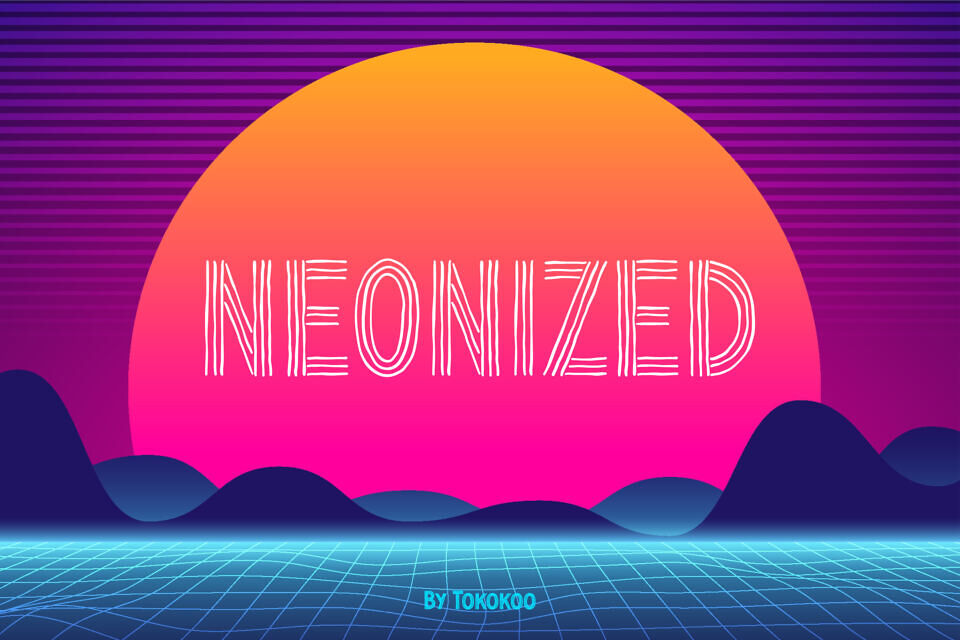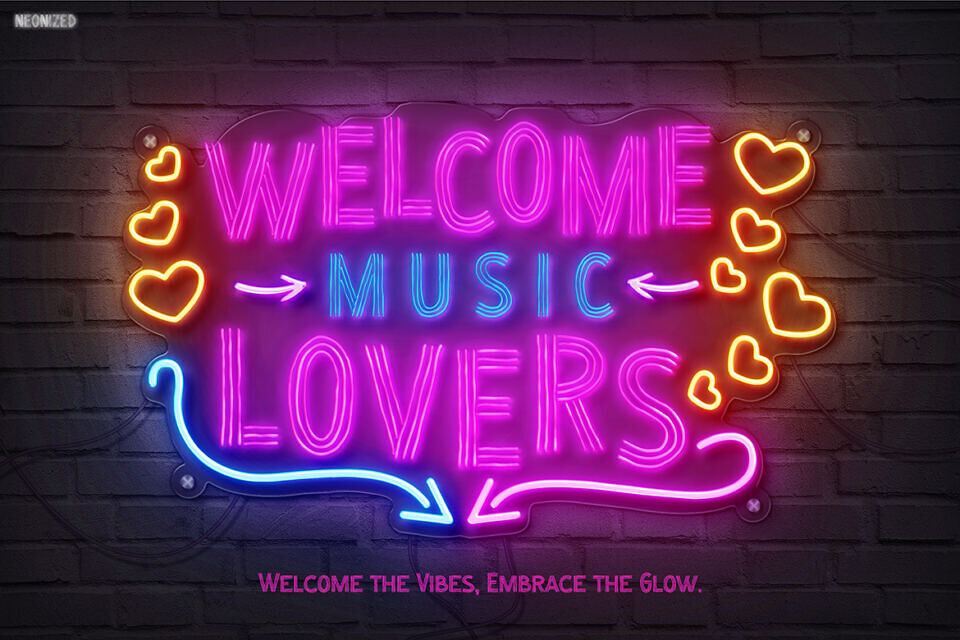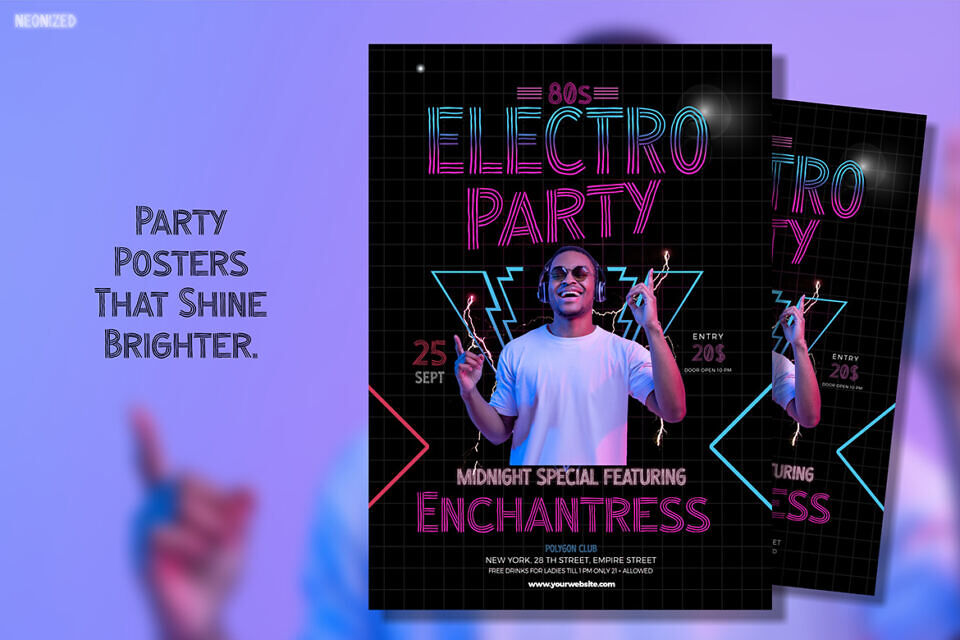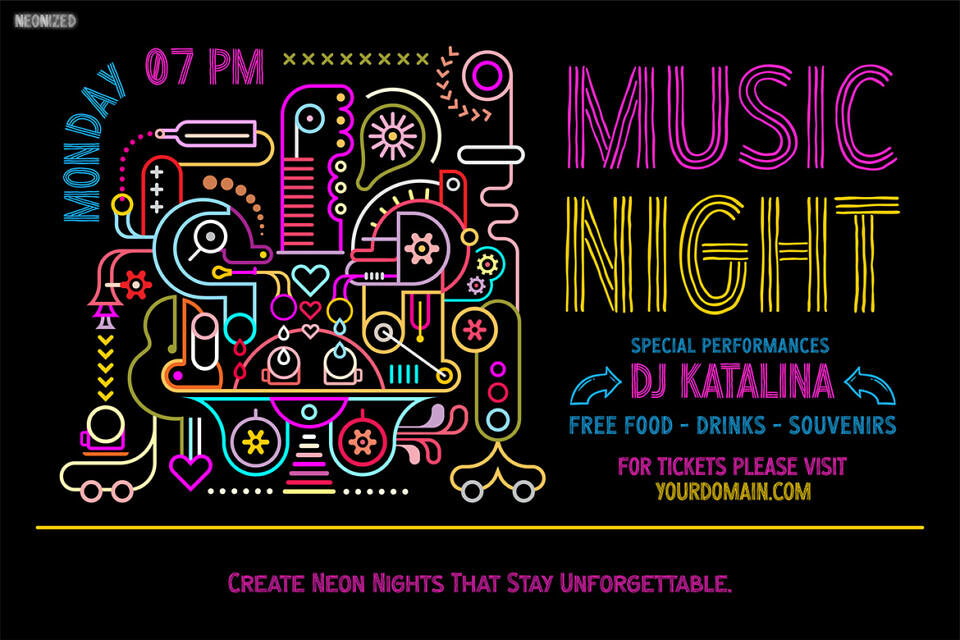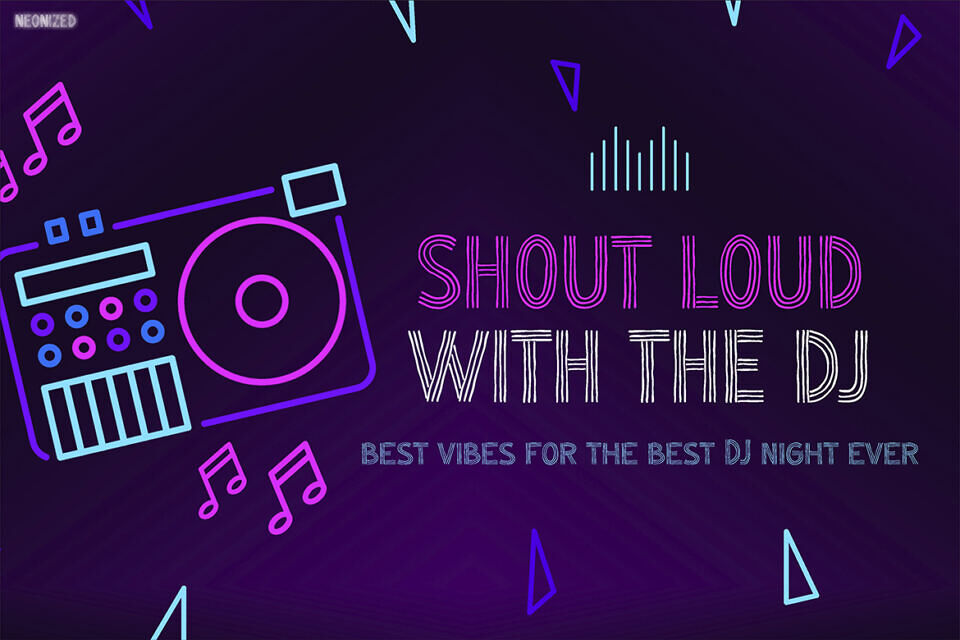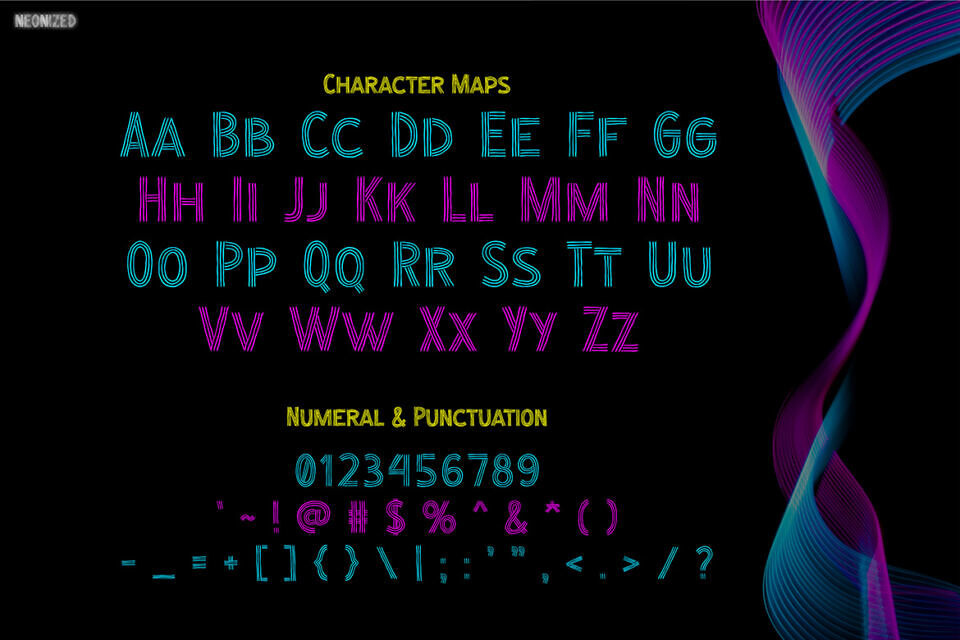
Neonized is a bold and electrifying typeface inspired by retro-futuristic aesthetics. It captures the vibrant energy of neon signs and 80s design. Moreover, its clean geometric shapes and unique strokes mimic the glowing effect of real neon lights. As a result, it delivers a nostalgic yet modern vibe.
The bold and polished design ensures readability while providing a striking visual impact. Therefore, it is ideal for creating attention-grabbing social media posts, event flyers, or branding materials. Above all, Neonized adds a dynamic and eye-catching touch to any project.